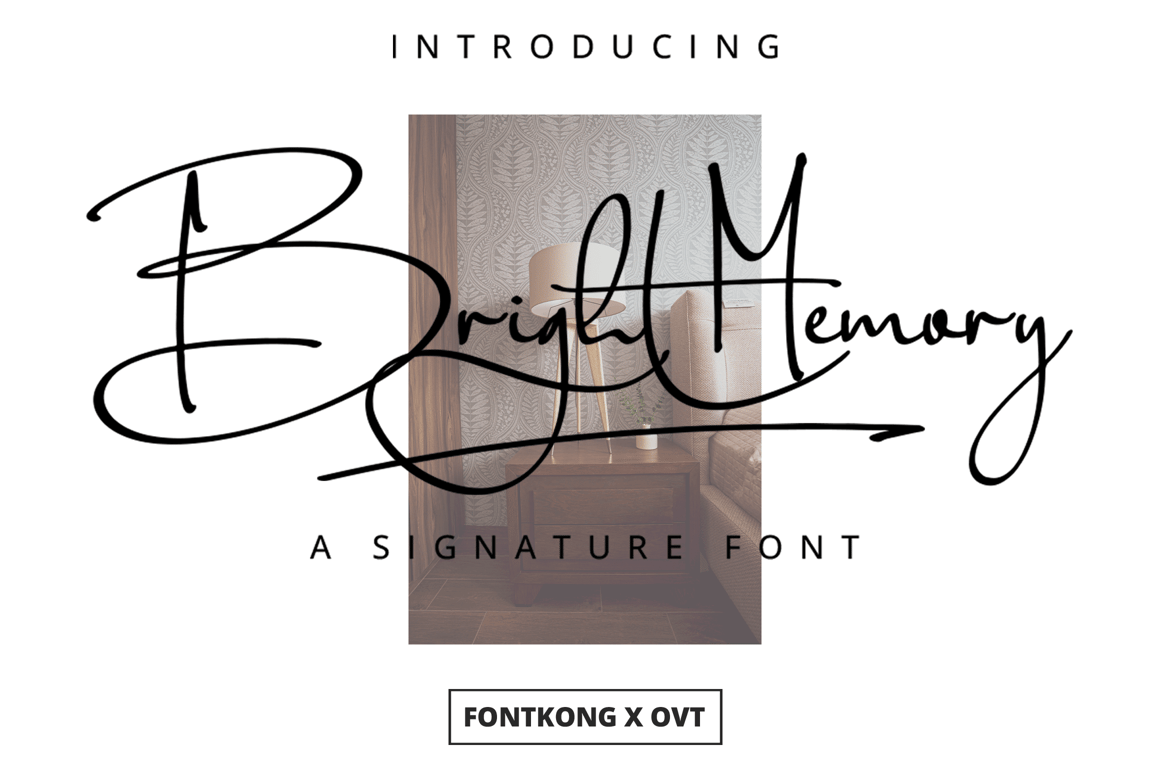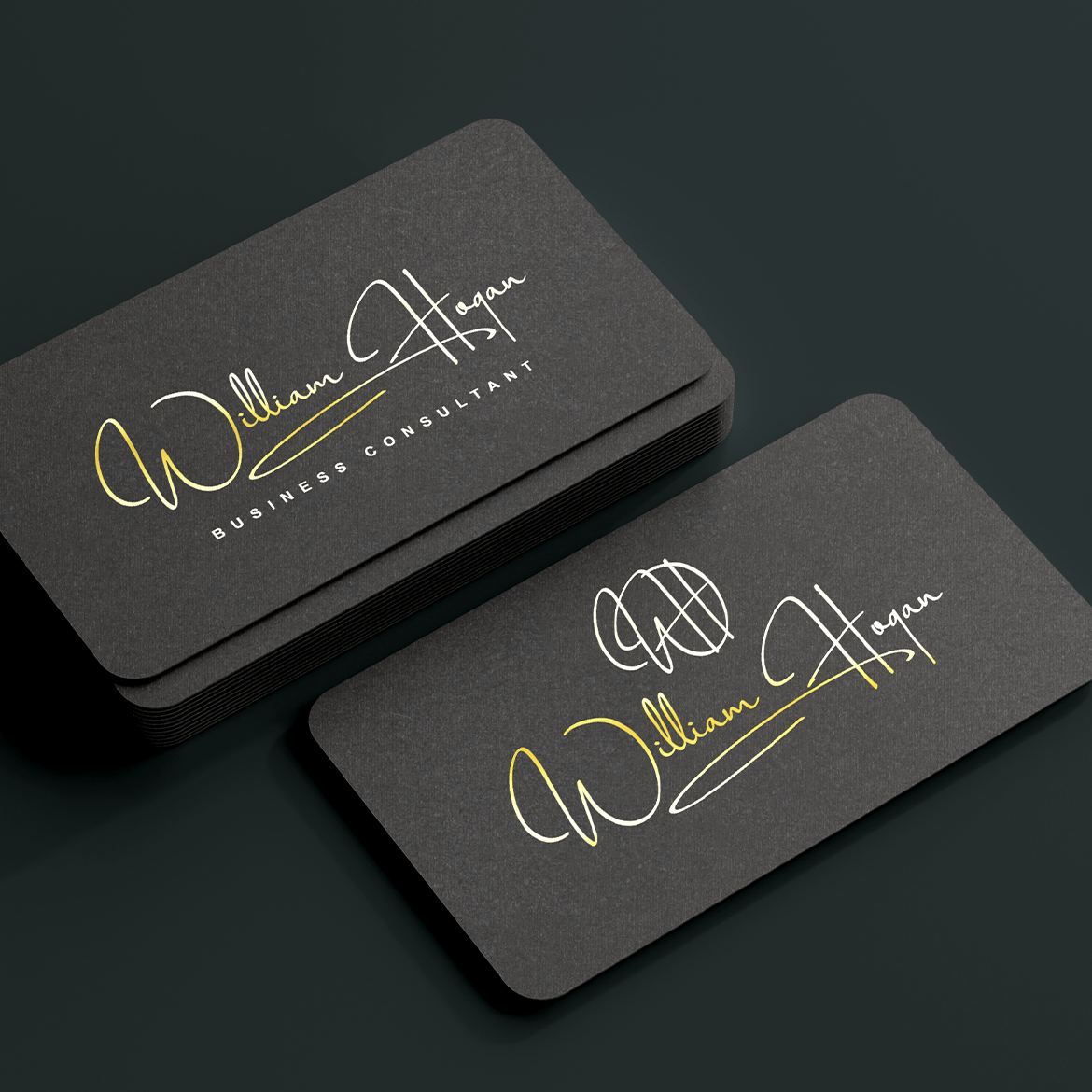
Bright Memory – A Signature Font
Crafted with meticulous detail, Bright Memory features fluid and graceful characters that offer excellent readability and visual appeal. Its elegant design makes it ideal for both headlines and body text, providing a cohesive and polished look across all your visual communications. The font’s versatility allows it to seamlessly integrate into various design contexts, from digital platforms to printed materials.